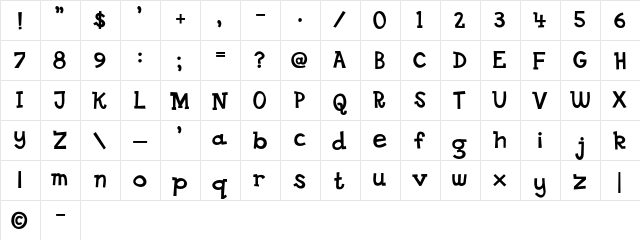
DS GooseC Regular
Design Context for DS GooseC Typeface
DS GooseC offers clean, dependable letterforms without strong stylistic allegiance, making it a practical choice for designers who need flexibility.